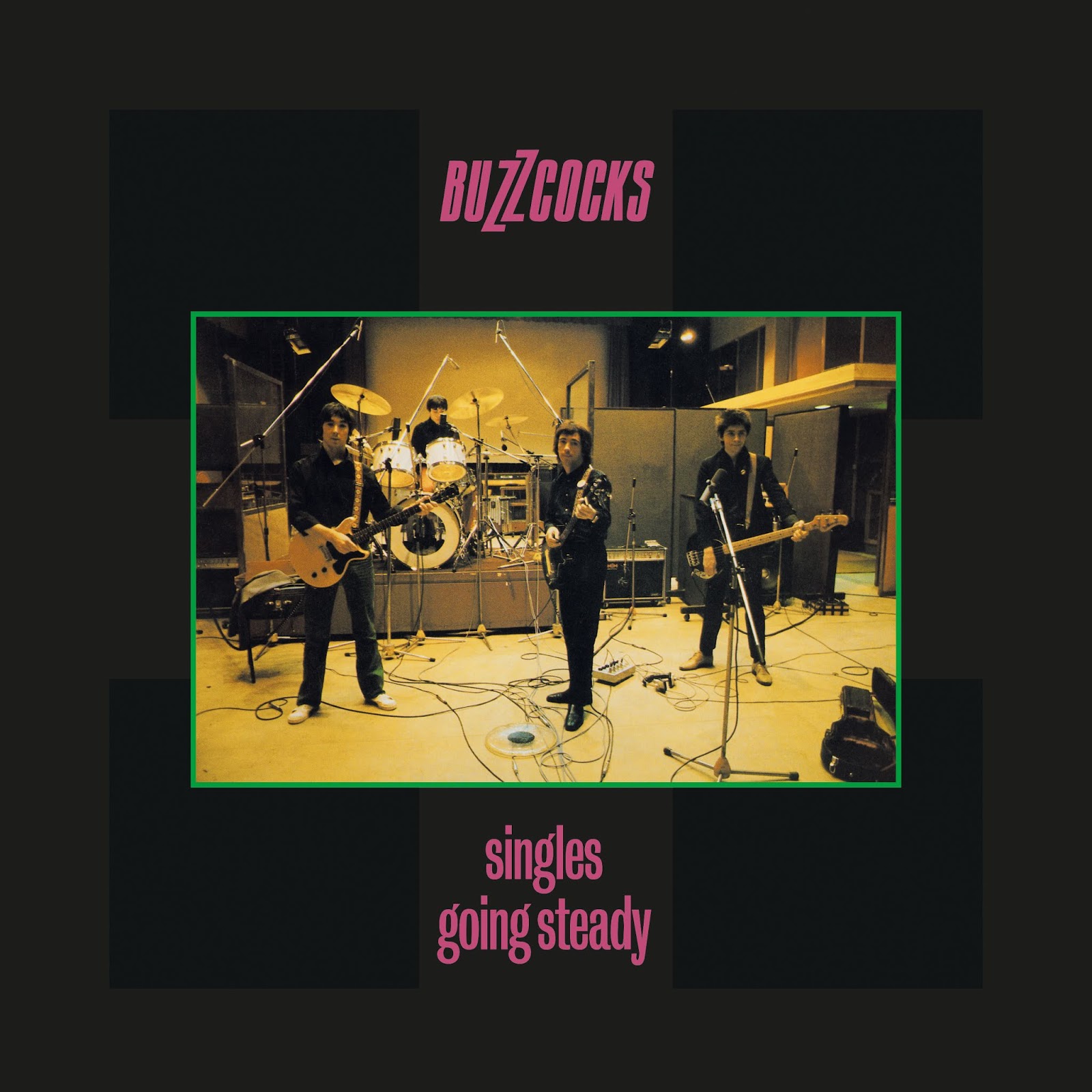
Singles Going Steady Font
BandSingles Going Steady is a compilation album by the punk rock band Buzzcocks, released in 1979. The album was recorded at Olympic Studios in London.
Fred Lambert's Compacta Italic font was the inspiration behind the double Z nested logo of the band. For the album title, Bureau Grot Compressed Book by David Berlow is the closest matching font available.